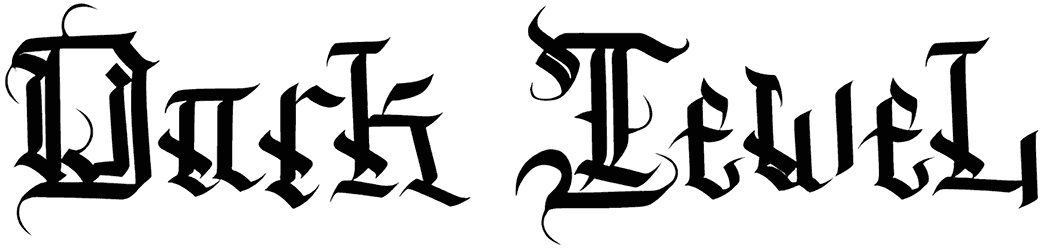
Dark Jewel Font
Now, become brave enough to achieve this opportunity to surpass, just by trying this black letter font. Its lettering contains a classic, ancient look to represent a sweet nostalgia vibe, plus modernity.
So, make up your mind to bring the traditional, chic, and decorative vision of Dark Jewel font for dressing up any magazine covers, movie titles, stickers, wedding cards, and the like. By the way, don’t overlook this elegant font, especially since it has put all the letters at your service.